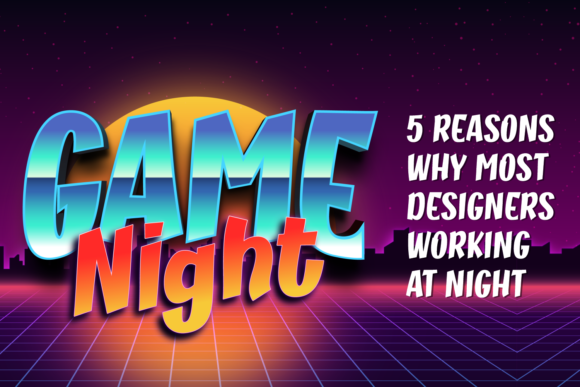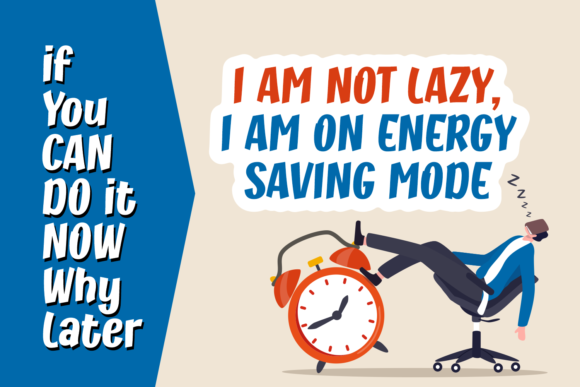
Introduction to Know How Font
Know How is the perfect display font for creative projects that need magnificent and imposing typography.
Try it on banners, covers, marketing campaigns, advertisements, or other bold ideas .
Why Choose Know How Font?
Know How Font offers exceptional quality and versatility, making it a valuable addition to your design toolkit. Whether you’re creating for personal projects or commercial use, Know How Font delivers professional results.